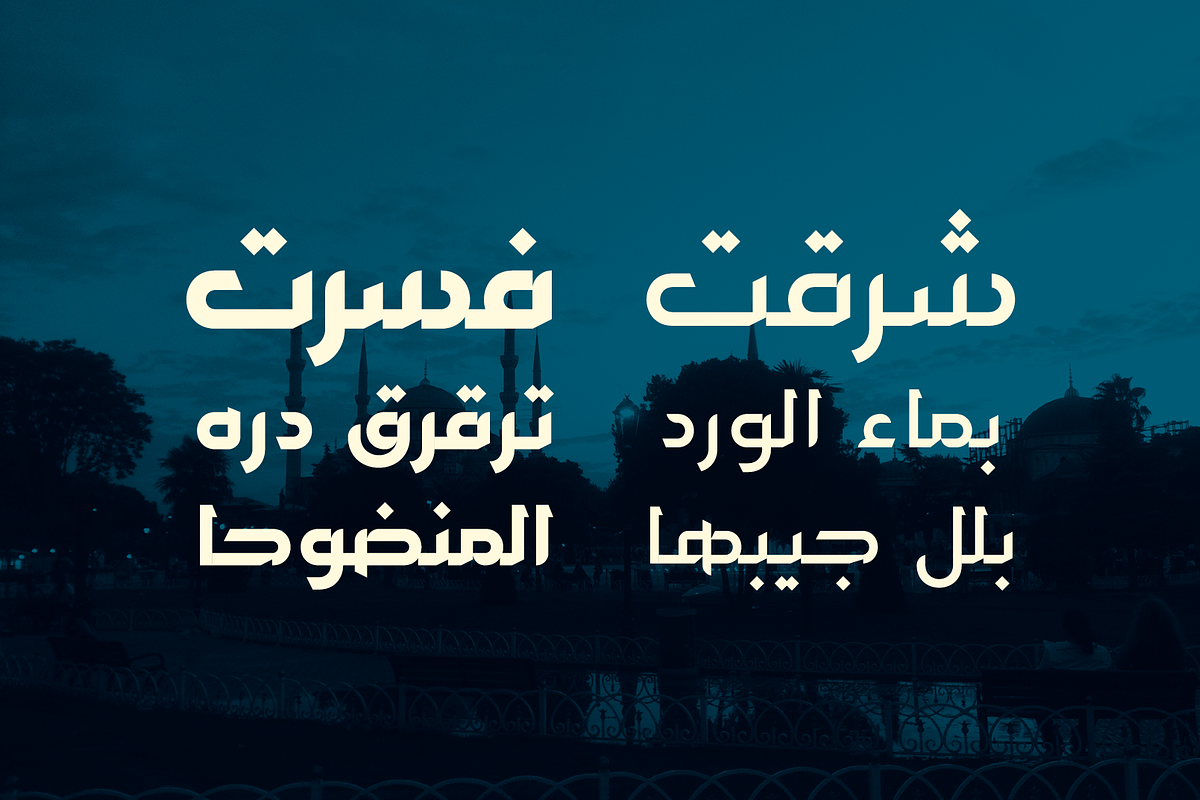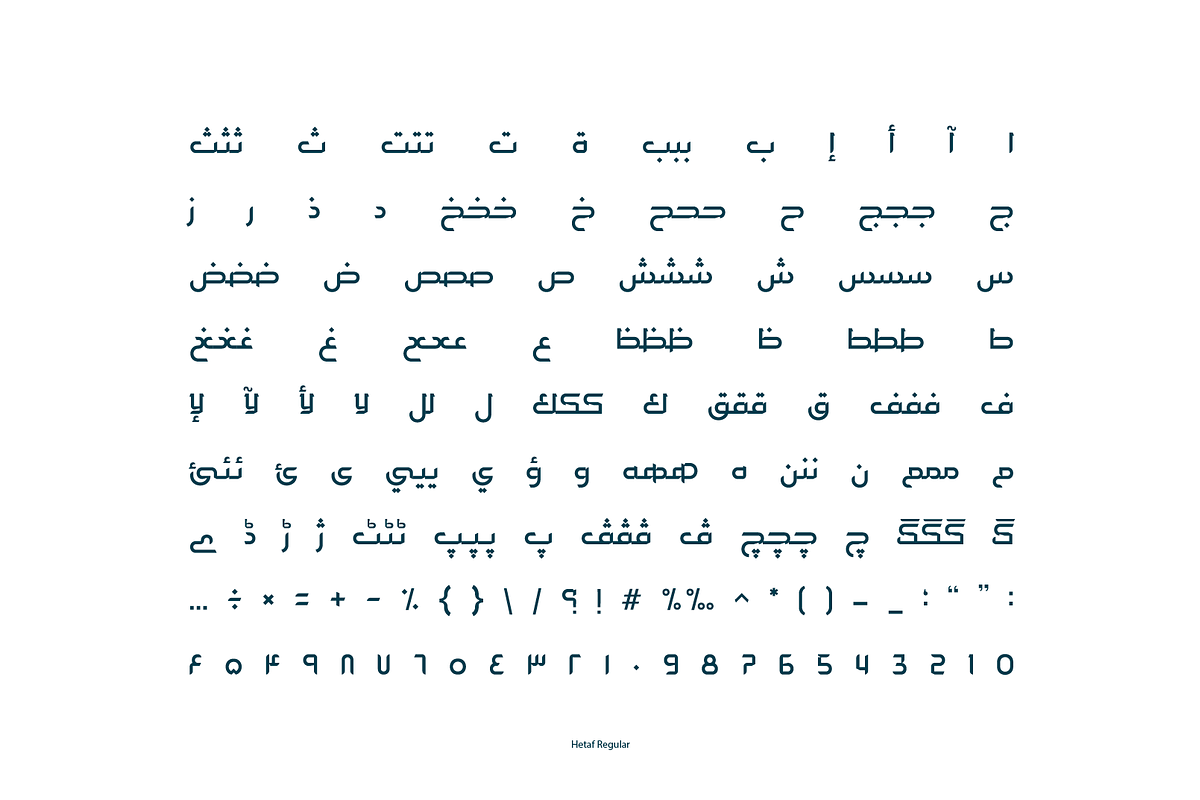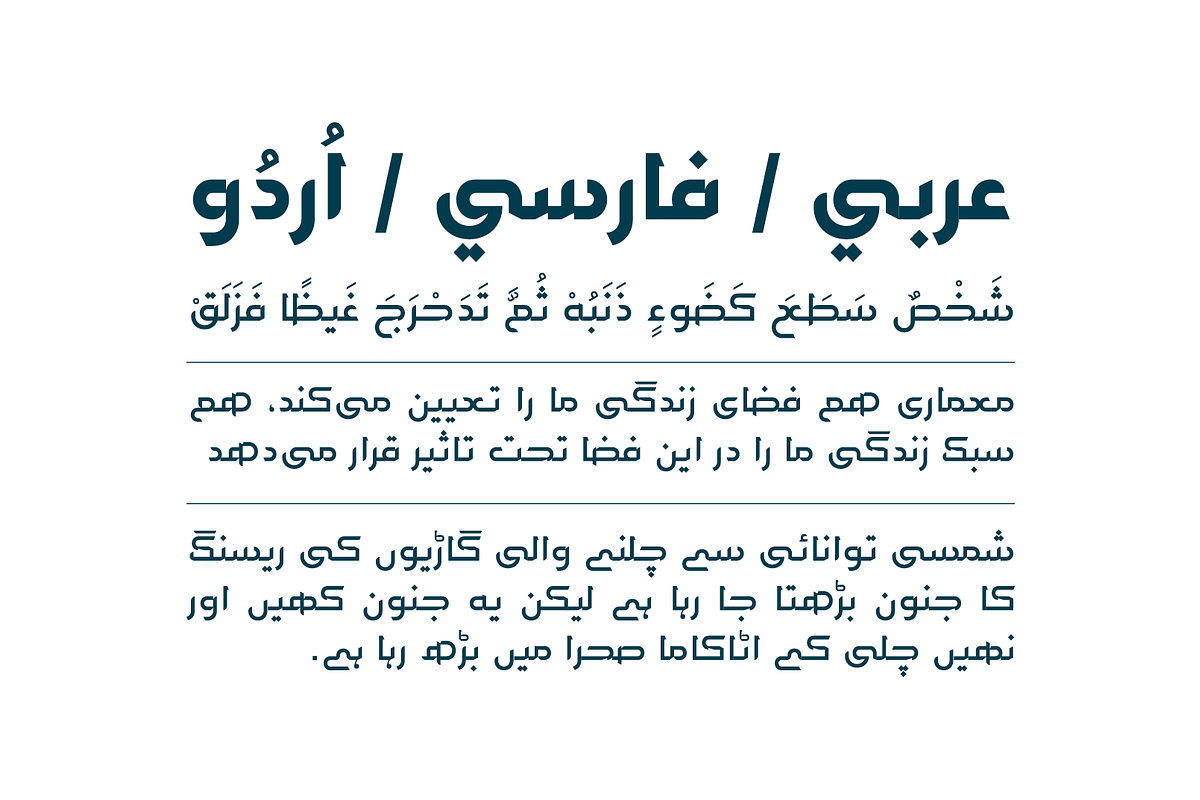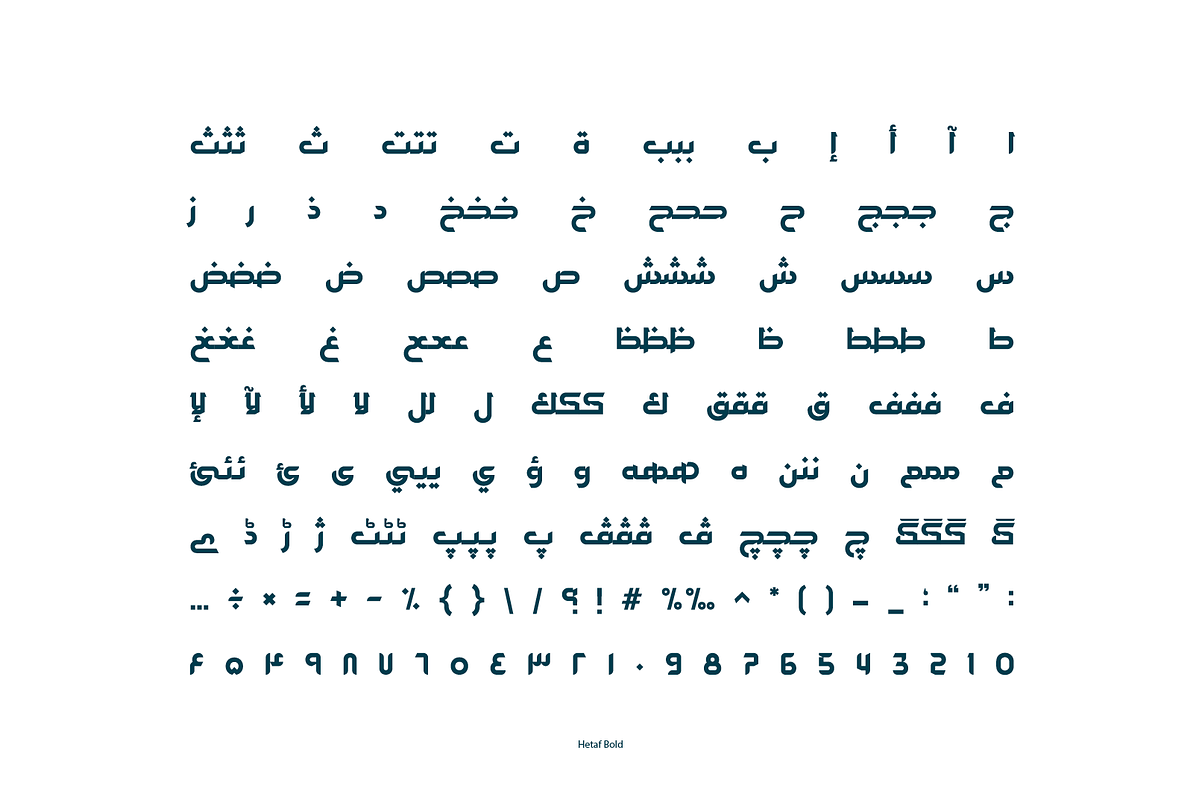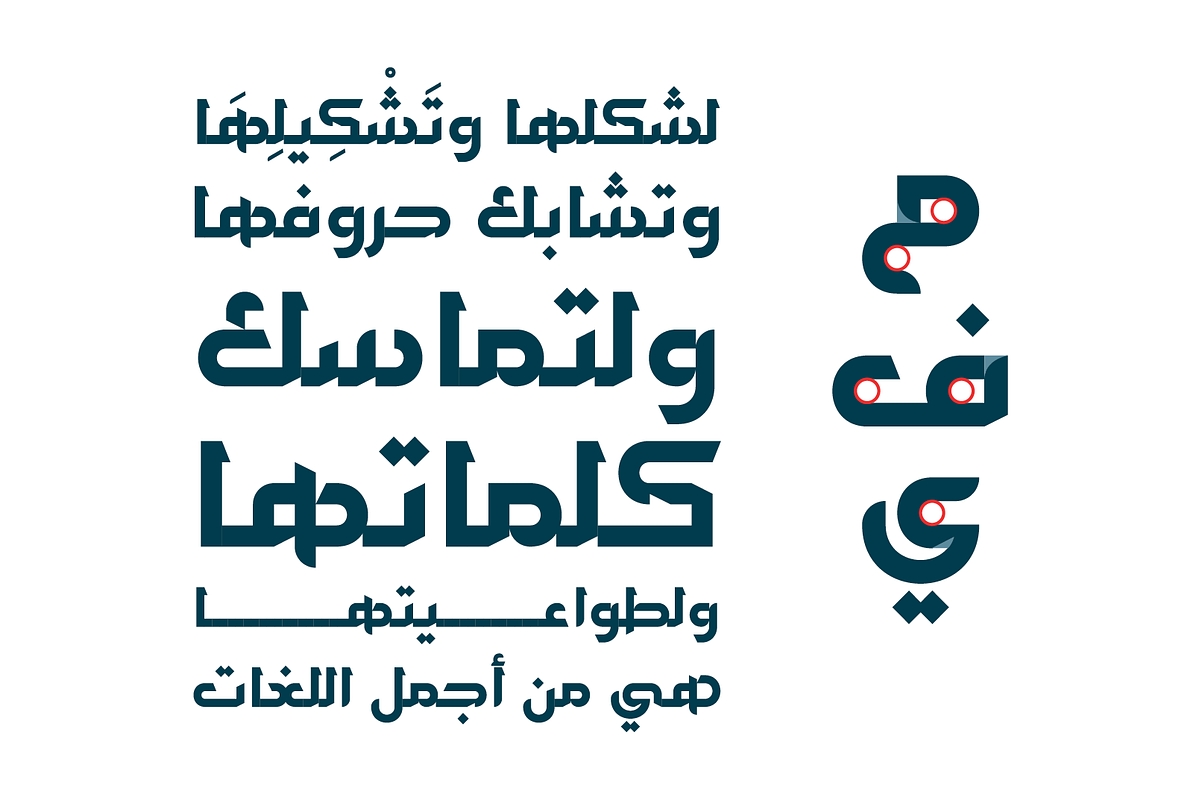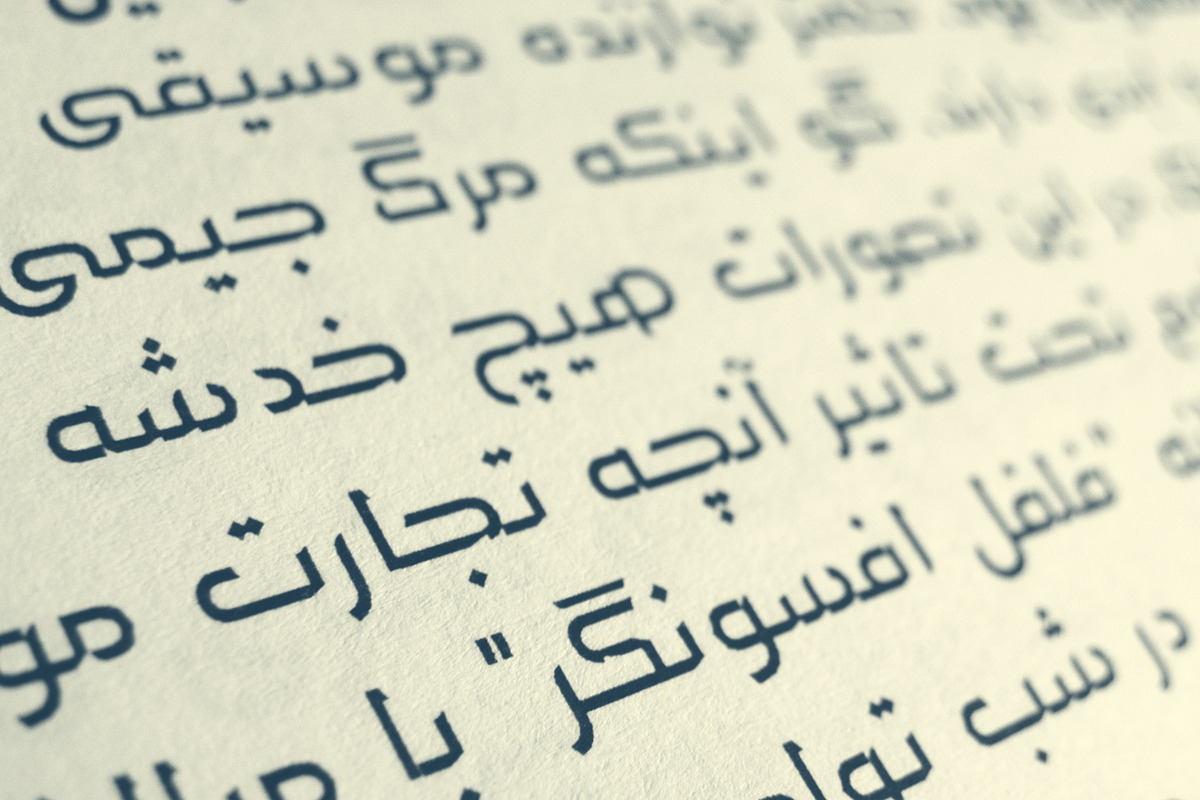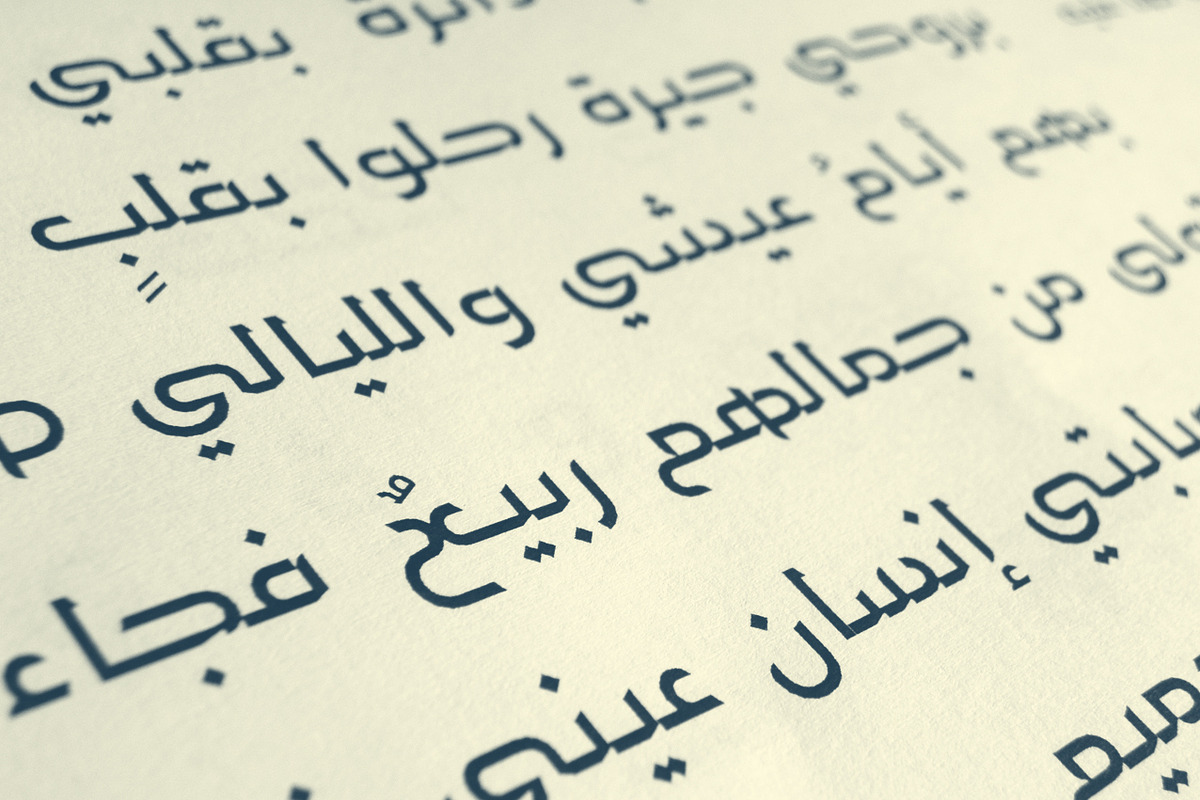
Hetaf - Arabic Font | خط هتاف
Hetaf - Arabic Font | خط هتاف by Mostafa El Abasiry is a font selected for branding, posters, packaging, typography.
- Its characters feature a blend of notches and refined edges, deviating from conventional Arabic script styles.
Why Hetaf - Arabic Font | خط هتاف is worth a look
Hetaf - Arabic Font | خط هتاف by Mostafa El Abasiry fits naturally into Branding, posters, packaging, typography.